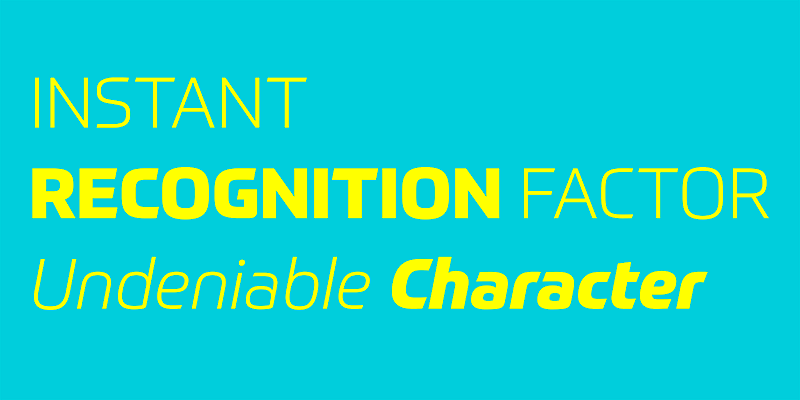
Prometo specimen
Prometo
Prometo is an industrial sans serif typeface with distinctive square features built for headline and display. Pair it with text family Soleto.